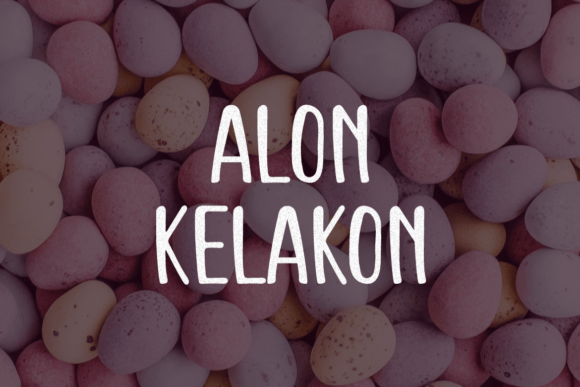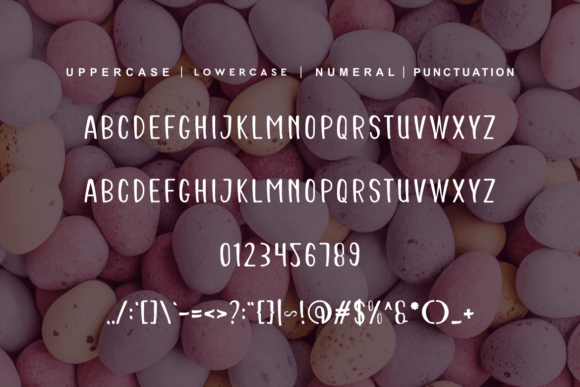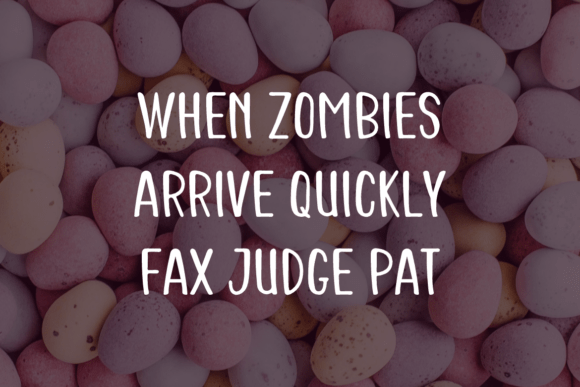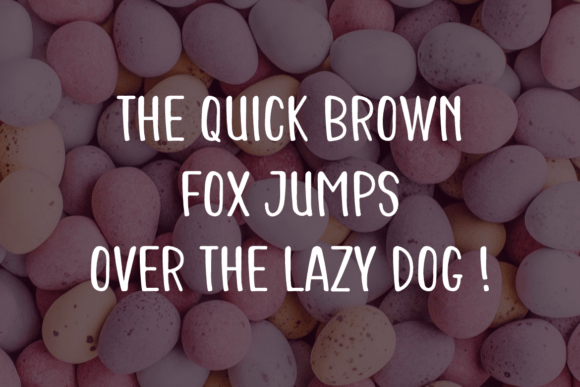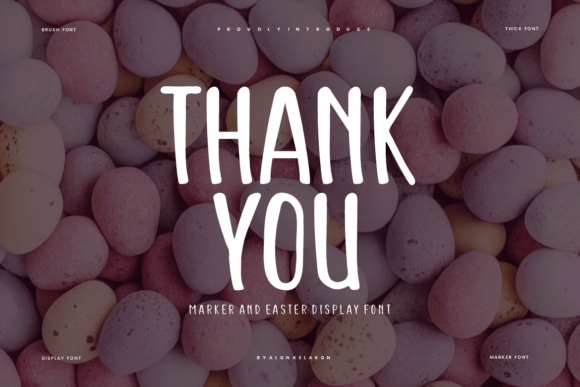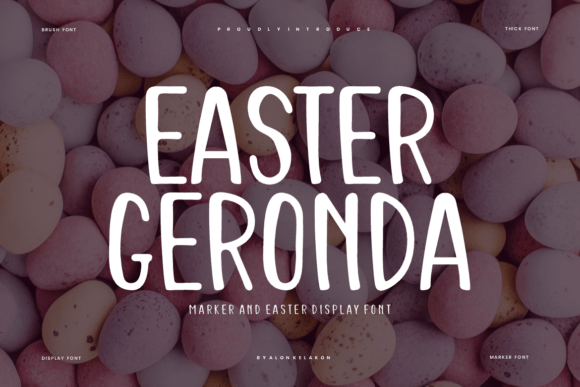
Easter Geronda Font: The Sweet and Friendly Handwritten Font for Your Creative Projects
Are you looking for a font that can add a touch of warmth and personality to your designs? Look no further than Easter Geronda, a sweet and friendly handwritten font that’s perfect for a wide range of creative projects. With its natural and unique style, Easter Geronda is incredibly versatile and can be used in everything from greeting cards and invitations to branding and advertising materials.
The Characteristics of Easter Geronda Font
Easter Geronda is a handwritten font that’s characterized by its sweet and friendly feel. The font features natural and fluid strokes, with a subtle irregularity that gives it a human touch. The letters are carefully crafted to create a sense of warmth and approachability, making Easter Geronda perfect for designs that require a personal and emotional connection.
One of the standout features of Easter Geronda is its unique style, which sets it apart from other handwritten fonts. The font has a distinctive charm that’s both playful and elegant, making it suitable for a wide range of design applications. Whether you’re creating a children’s book, a wedding invitation, or a social media graphic, Easter Geronda is sure to add a touch of personality and whimsy to your design.
The Benefits of Using Easter Geronda Font
So why choose Easter Geronda for your design projects? Here are just a few benefits of using this versatile and charming font:
- Versatility: Easter Geronda is incredibly versatile and can be used in a wide range of design applications, from print materials like greeting cards and invitations to digital designs like social media graphics and website headers.
- Emotional Connection: The font’s natural and friendly style creates an emotional connection with the reader, making it perfect for designs that require a personal touch.
- Unique Style: Easter Geronda’s unique style sets it apart from other handwritten fonts, giving your designs a distinctive and recognizable look.
- Ease of Use: The font is easy to read and use, making it perfect for designers of all skill levels.
How to Use Easter Geronda Font in Your Designs
Using Easter Geronda in your designs is easy! Here are a few tips to get you started:
- Pair it with Other Fonts: Easter Geronda looks great when paired with other fonts, such as sans-serif fonts like Arial or Helvetica. Experiment with different font combinations to create a unique and eye-catching design.
- Use it for Headings and Titles: Easter Geronda is perfect for headings and titles, where its unique style and friendly feel can really shine.
- Add it to Your Branding: Consider using Easter Geronda as part of your branding identity, where its warm and approachable style can help create a strong emotional connection with your customers.
Design Ideas that Showcase Easter Geronda Font
Easter Geronda is a versatile font that can be used in a wide range of design applications. Here are a few ideas to get you started:
- Greeting Cards: Create personalized greeting cards for special occasions like Easter, birthdays, and holidays.
- Invitations: Use Easter Geronda to create beautiful and unique invitations for weddings, baby showers, and other special events.
- Branding: Use Easter Geronda as part of your branding identity, where its warm and approachable style can help create a strong emotional connection with your customers.
- Social Media Graphics: Create eye-catching social media graphics using Easter Geronda, where its friendly and approachable style can help you connect with your audience.
In conclusion, Easter Geronda is a sweet and friendly handwritten font that’s perfect for designers and crafters looking to add a touch of warmth and personality to their designs. With its natural and unique style, Easter Geronda is incredibly versatile and can be used in a wide range of design applications. So why not give Easter Geronda a try and see how it can elevate your designs?